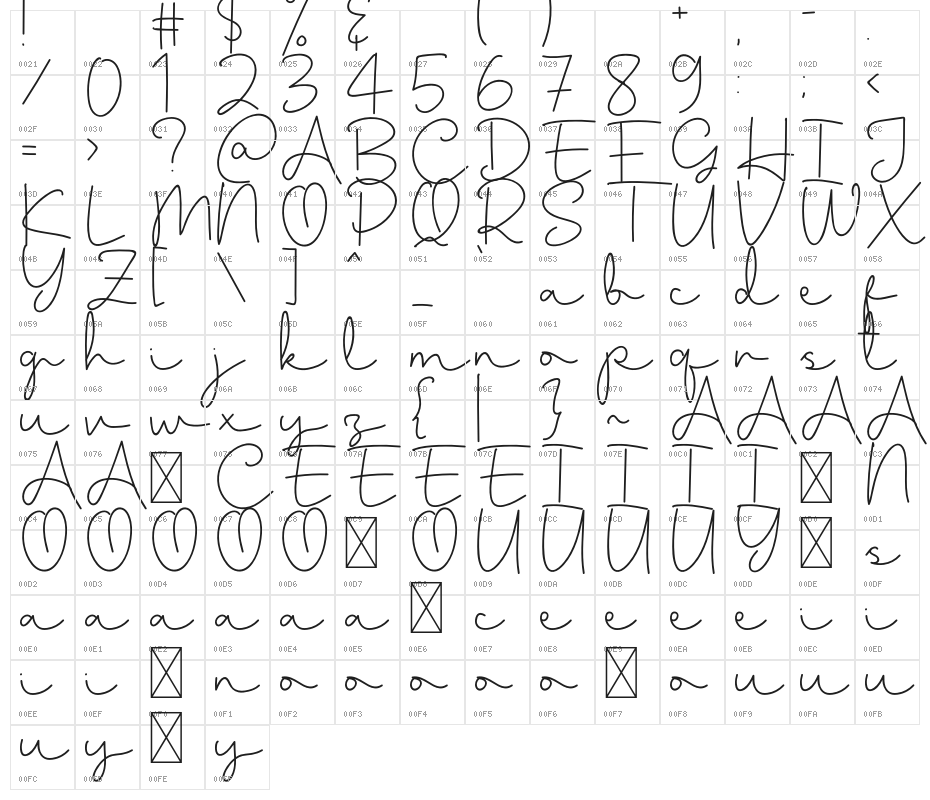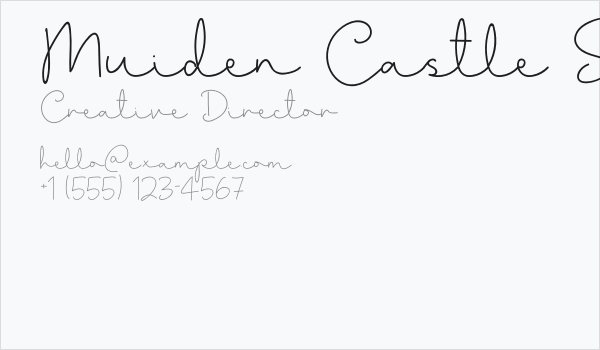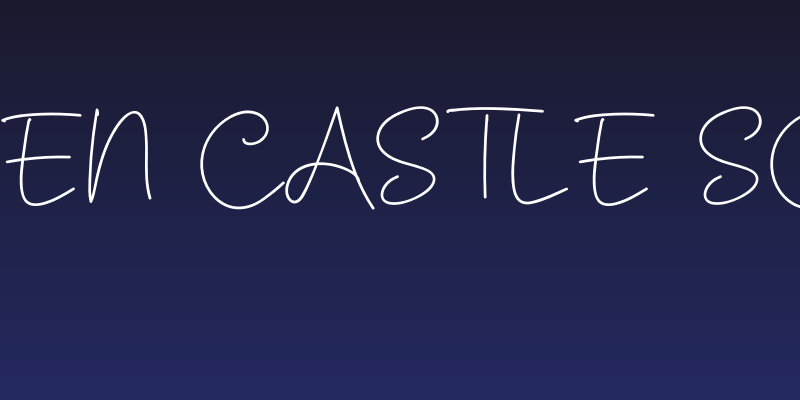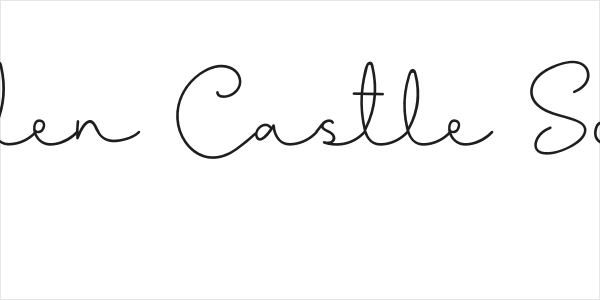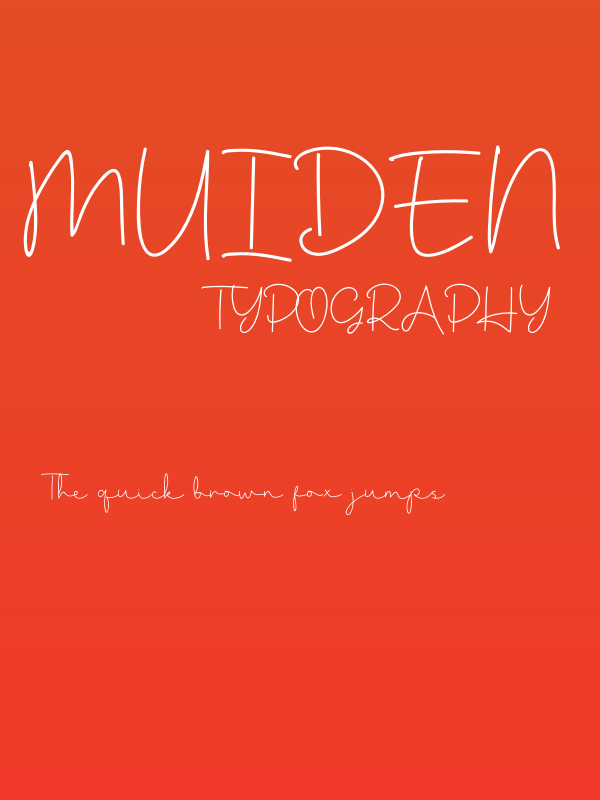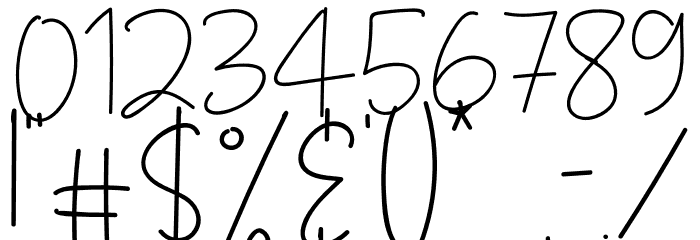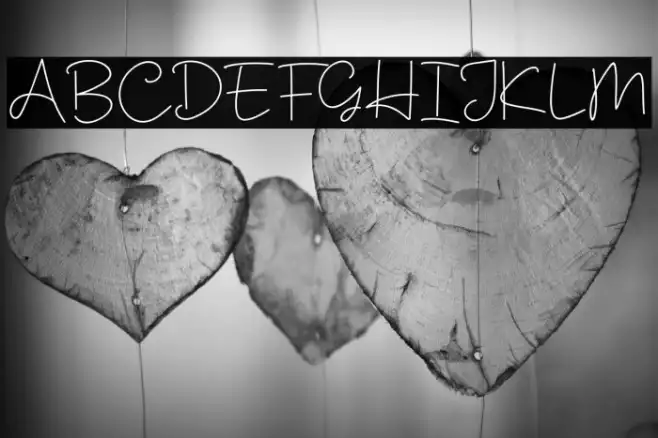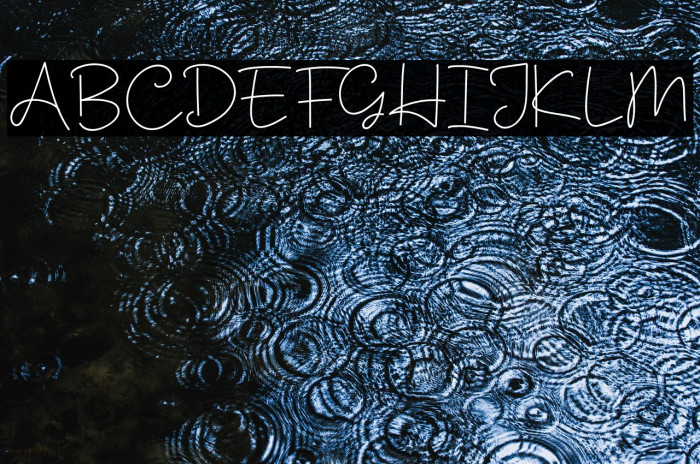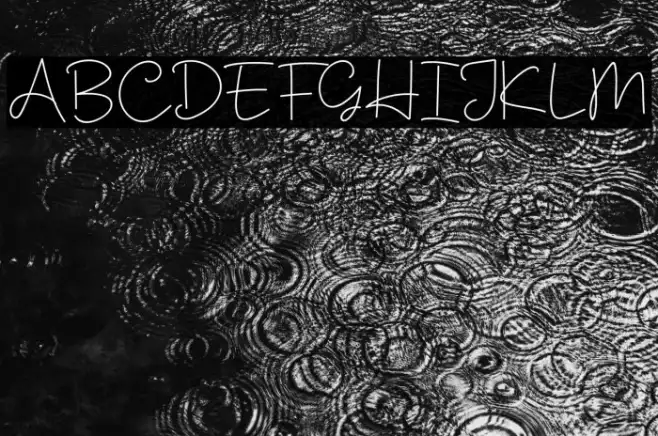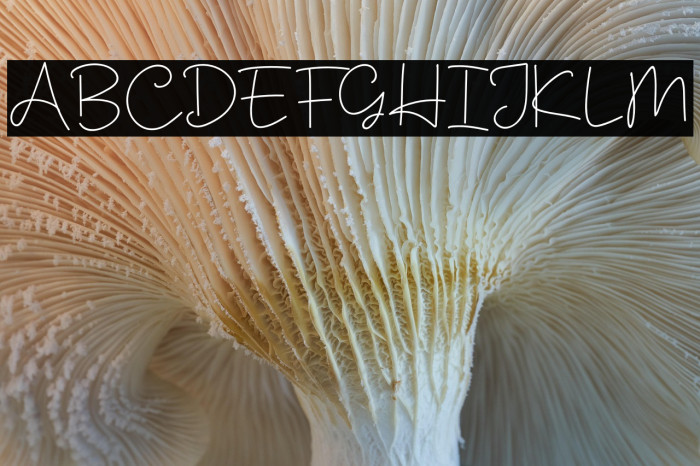
Muiden Castle Script Font
Muiden Castle Script Description
This font features a playful and elegant script style with a handwritten appearance. The uppercase letters are bold and slightly slanted, giving a dynamic and lively feel. The lowercase letters flow smoothly with connected strokes, enhancing the cursive aesthetic. Numbers and special characters maintain the same fluidity, ensuring consistency across all glyphs. The overall design is clean and modern, making it suitable for a variety of creative applications. The font's unique character is emphasized by its delicate lines and balanced proportions, making it both readable and visually appealing.